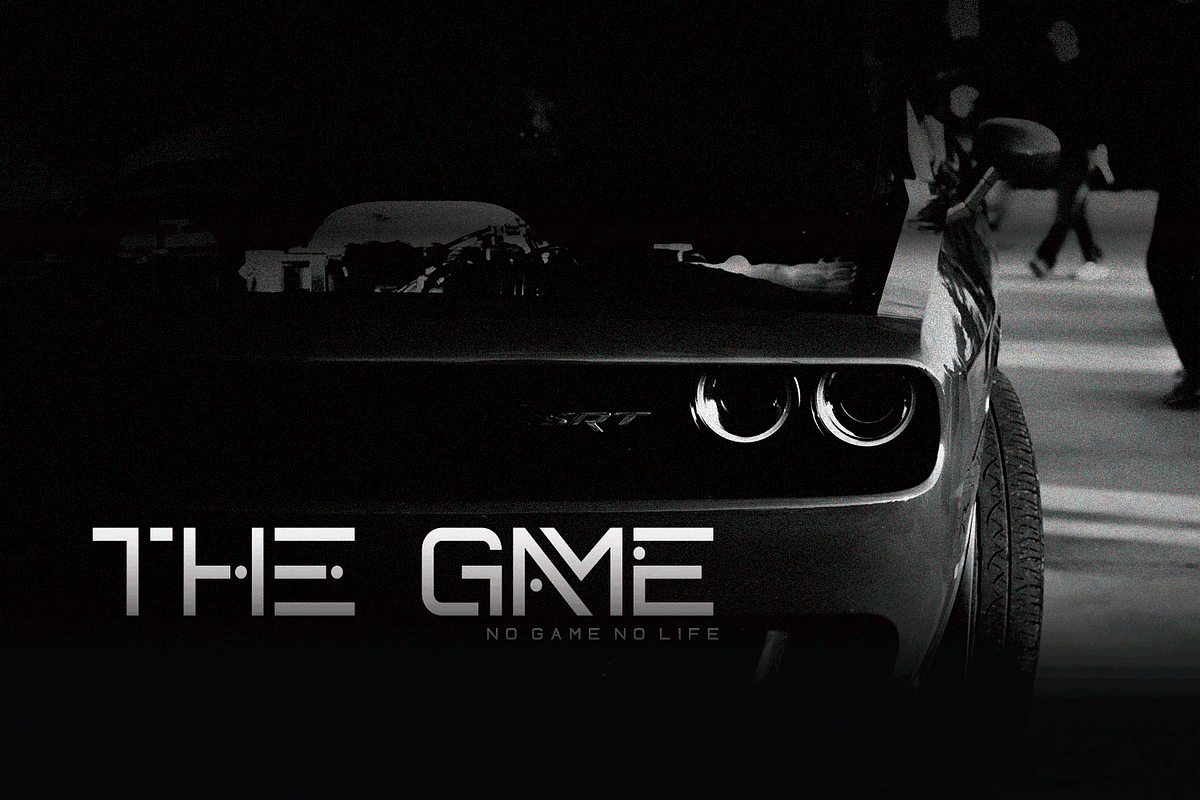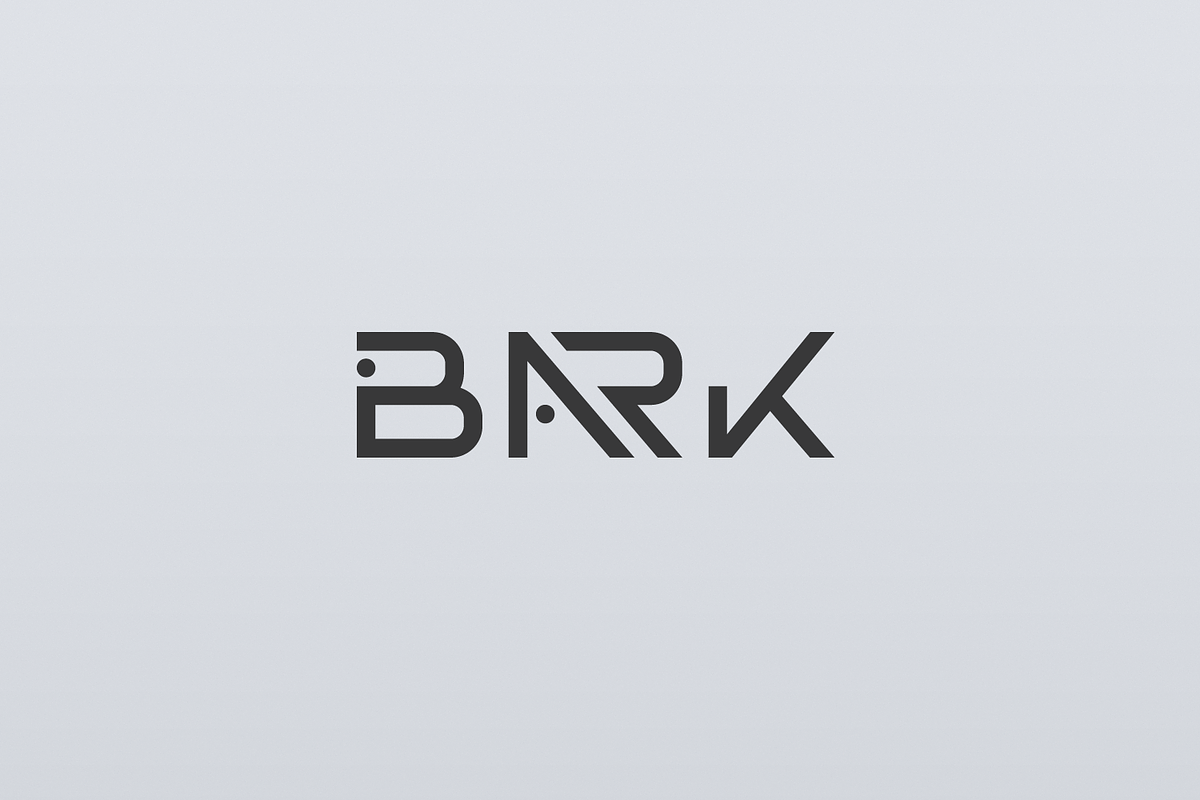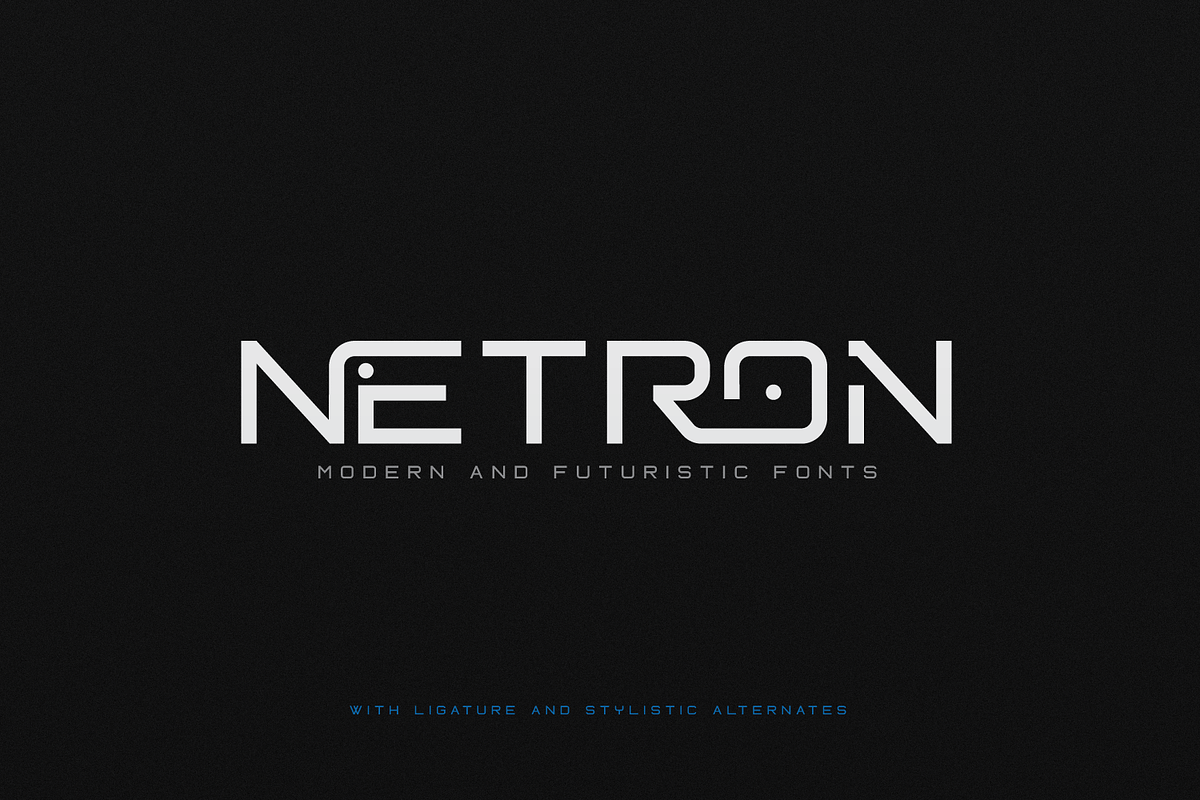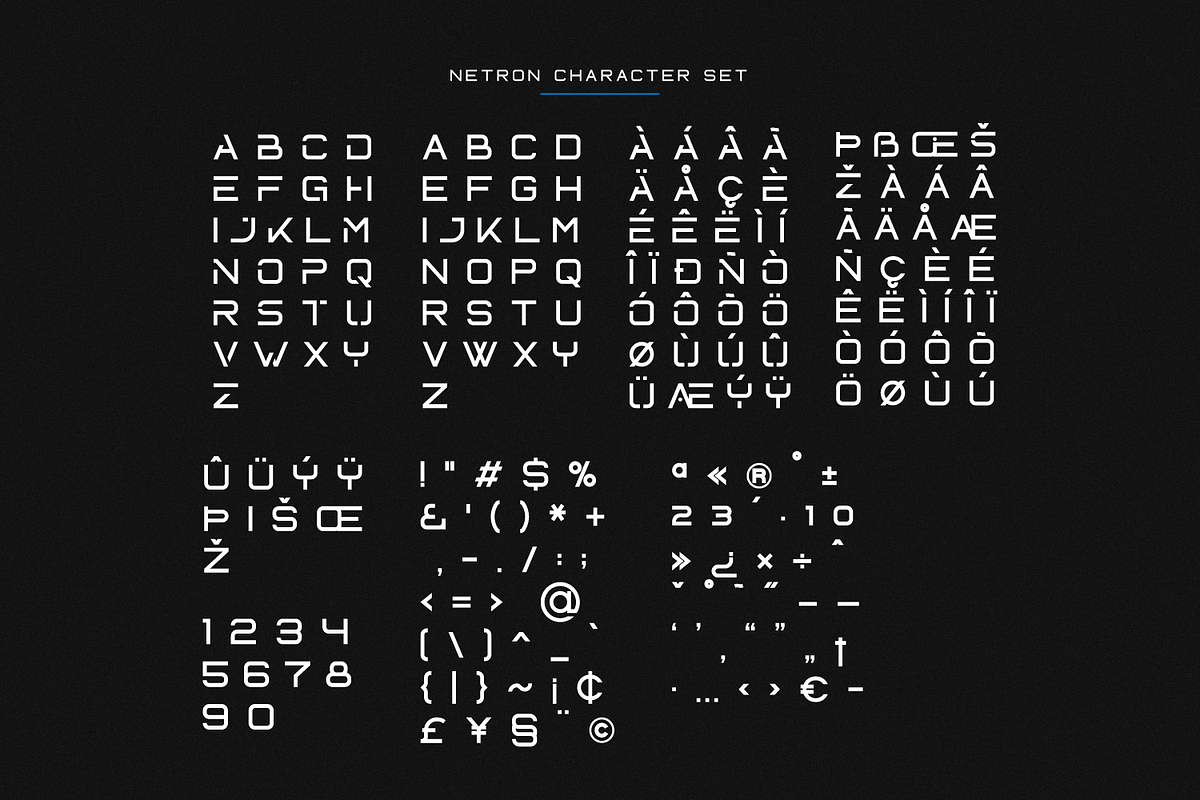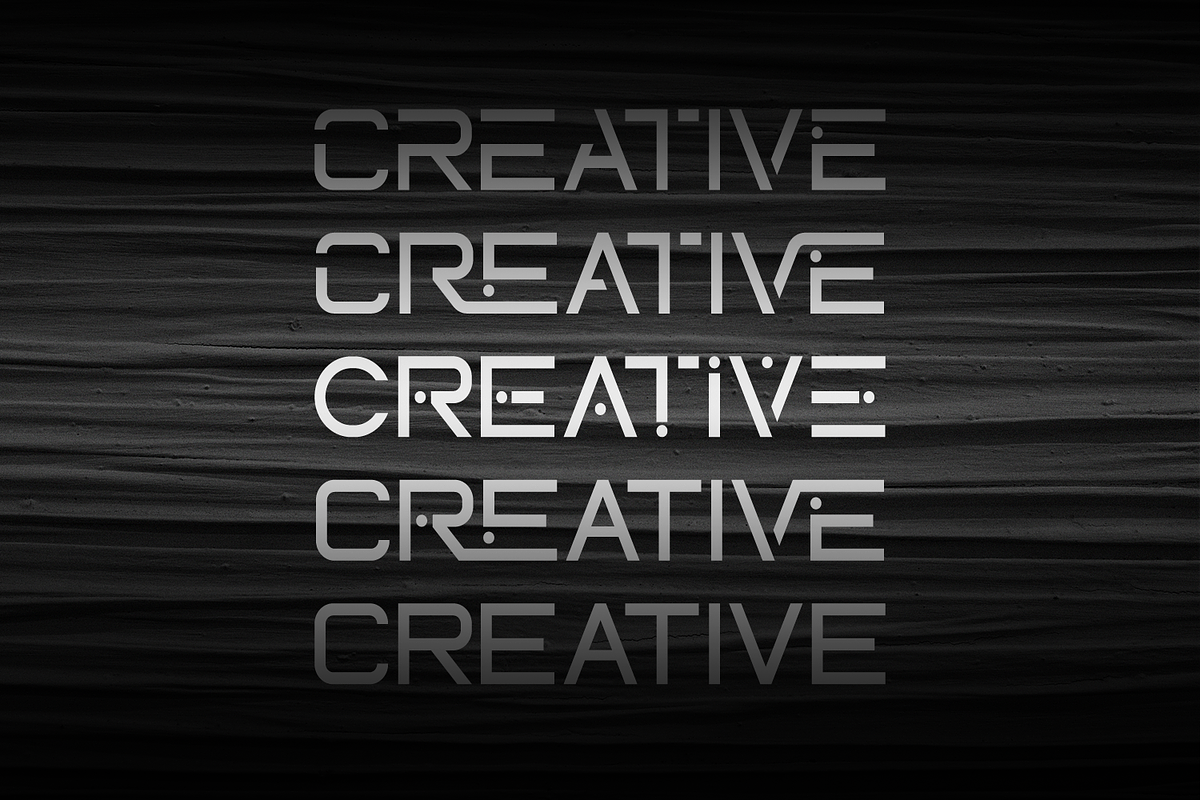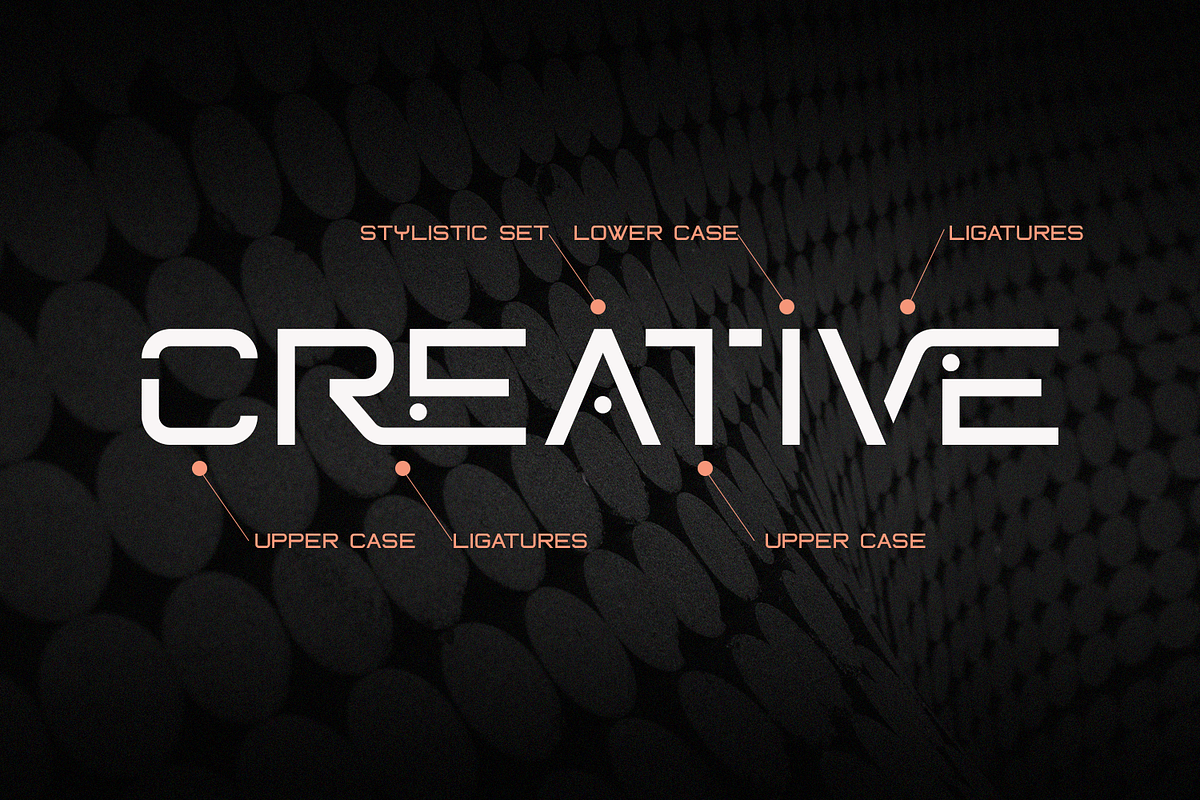
Netron - Futuristic Font
Netron Is a sans serif Font that has a futuristic feel, designed with minimal lines to keep it simple and artistic. This gives your text a modern smart effect. This font is equipped with ligature and alternative letters will be very good for your work such as posters, logos, magazines, covers, banners, t-shirts and headers, or even large scale artwork. What you get dear, you will get :
1. Netron- A clean San serif font including Upper & Lowercase characters(ALL CAPS),
2. Ligatures Character(187 characters) & Stylistic alternates Character (39 Character)
3. Supports Multi linguage (Latin Western Europe), Numbers and Punctuation